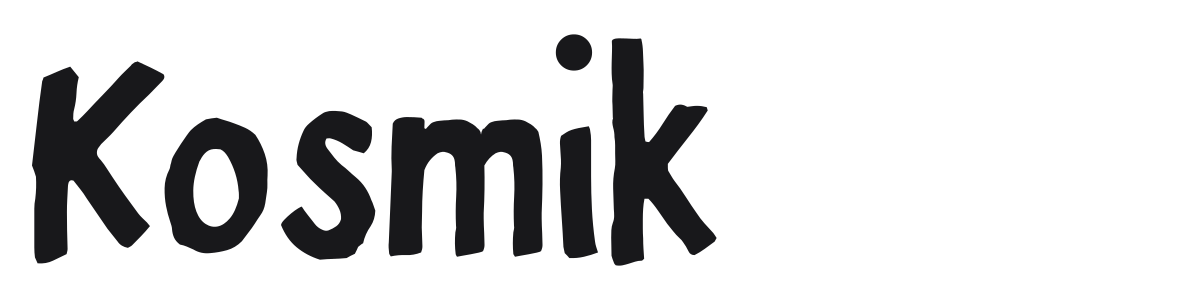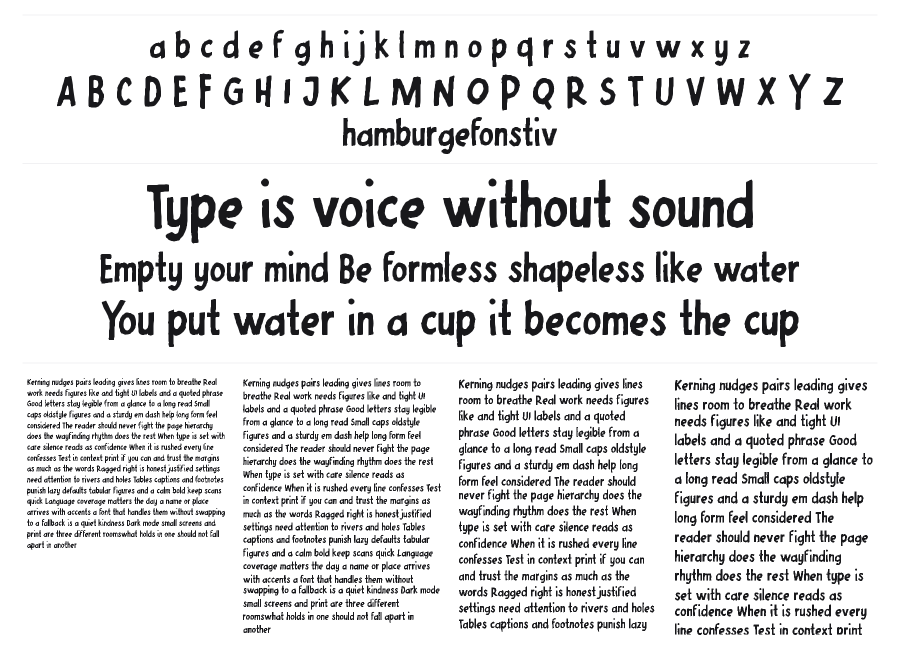
Kosmik
by InspiraType
Kosmik is a bold hand-lettered display font inspired by classic vintage posters. The strokes carry just enough irregularity to feel genuinely hand-made without sacrificing legibility at large sizes. It brings a lively retro energy to logos, apparel graphics, and poster work.